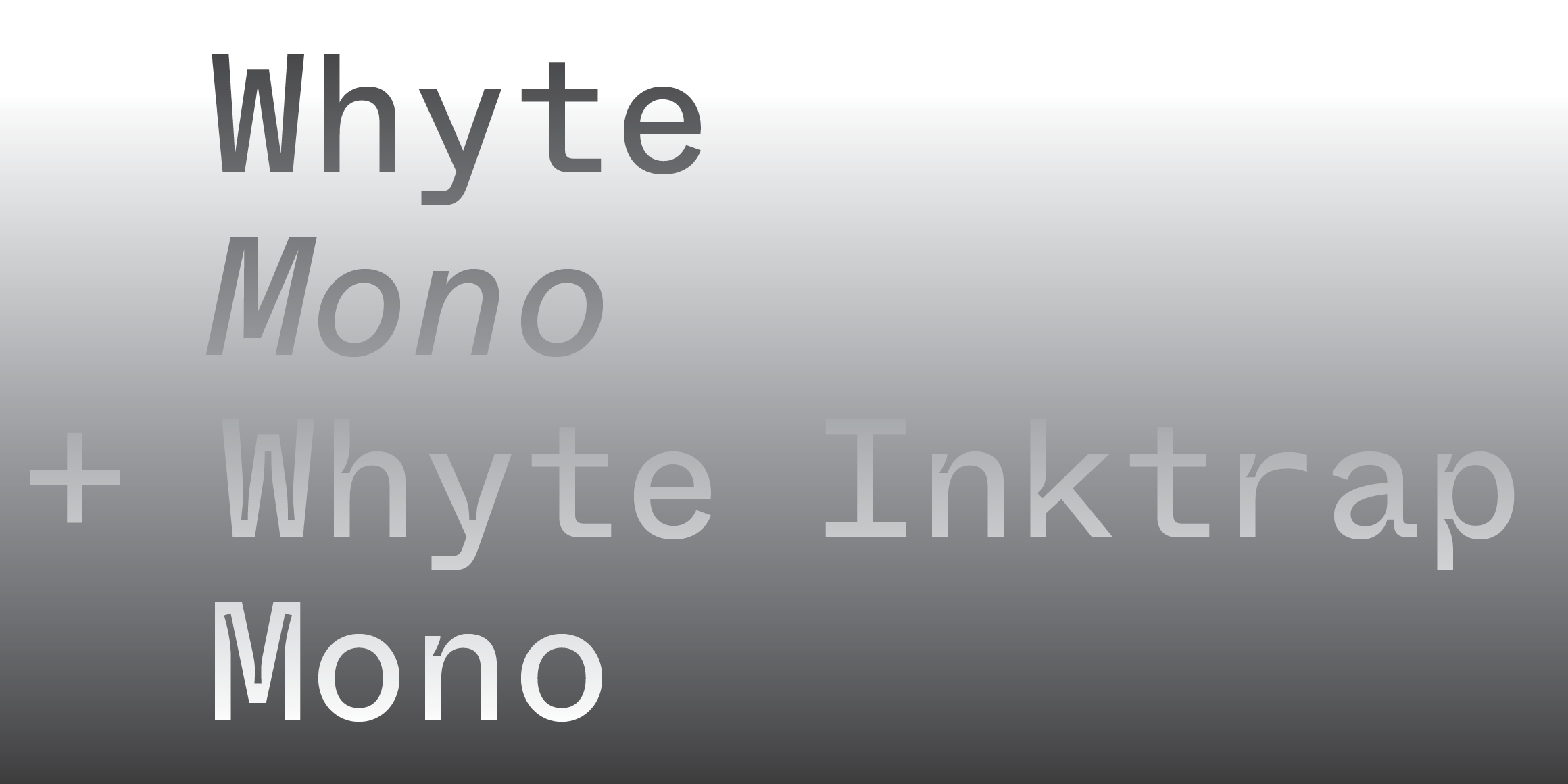
ABC Whyte Hangul
ABC Whyte is a contemporary grotesque typeface of idiosyncrasies and character, and it’s available as two distinctive subfamilies. ABC Whyte has smooth and sharp transitions, while ABC Whyte Inktrap has ink traps at its joints. Ink traps were necessary during the hot metal type printing era, in order to improve the quality of printed text. Using variable font technology, users are able to deepen or shorten the ink traps of this typeface, sliding from deep wells to shorter cuts.
Whyte was designed by Dinamo Typefaces and was extended into Hangul by Mingoo Yoon. Latin Design: Dinamo Typefaces (Fabian Harb & Johannes Breyer, with Erkin Karamemet & Fabiola Mejía) Hangul Design: YMG Type Foundry (Mingoo Yoon & Jieun Kim), Project Management: Min-Young Kim